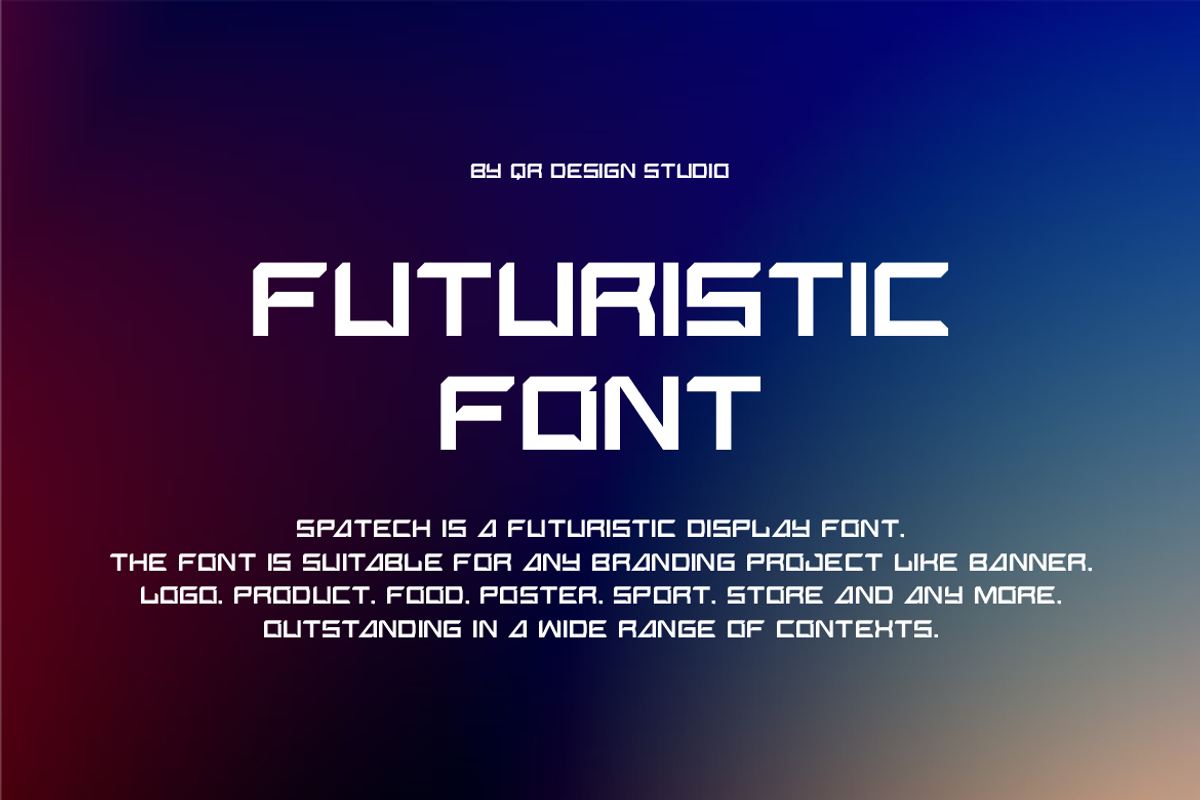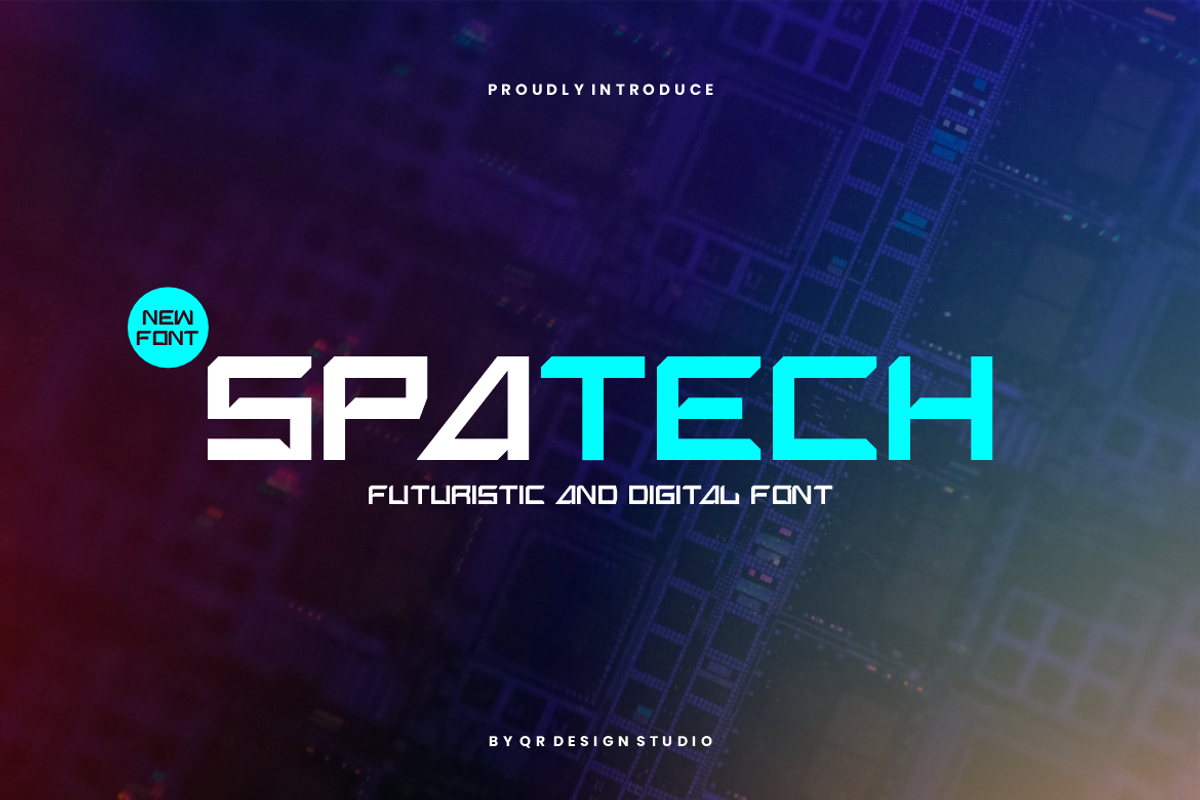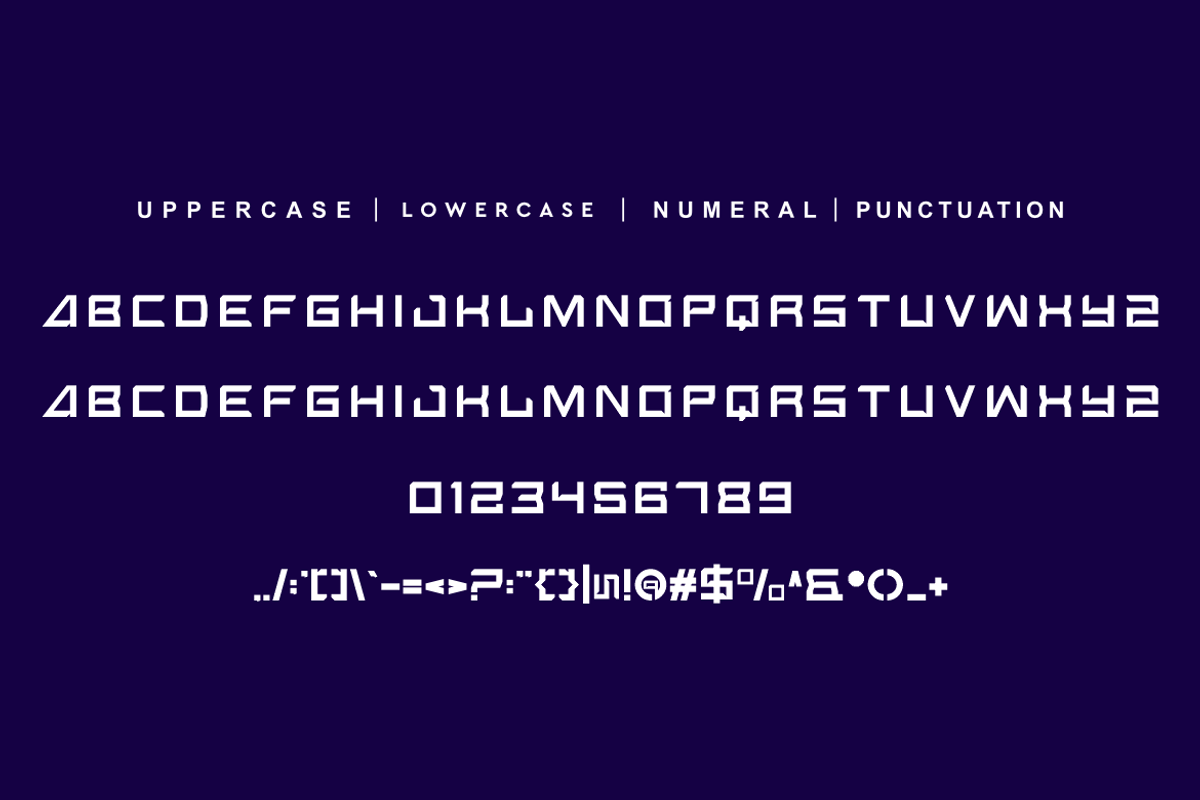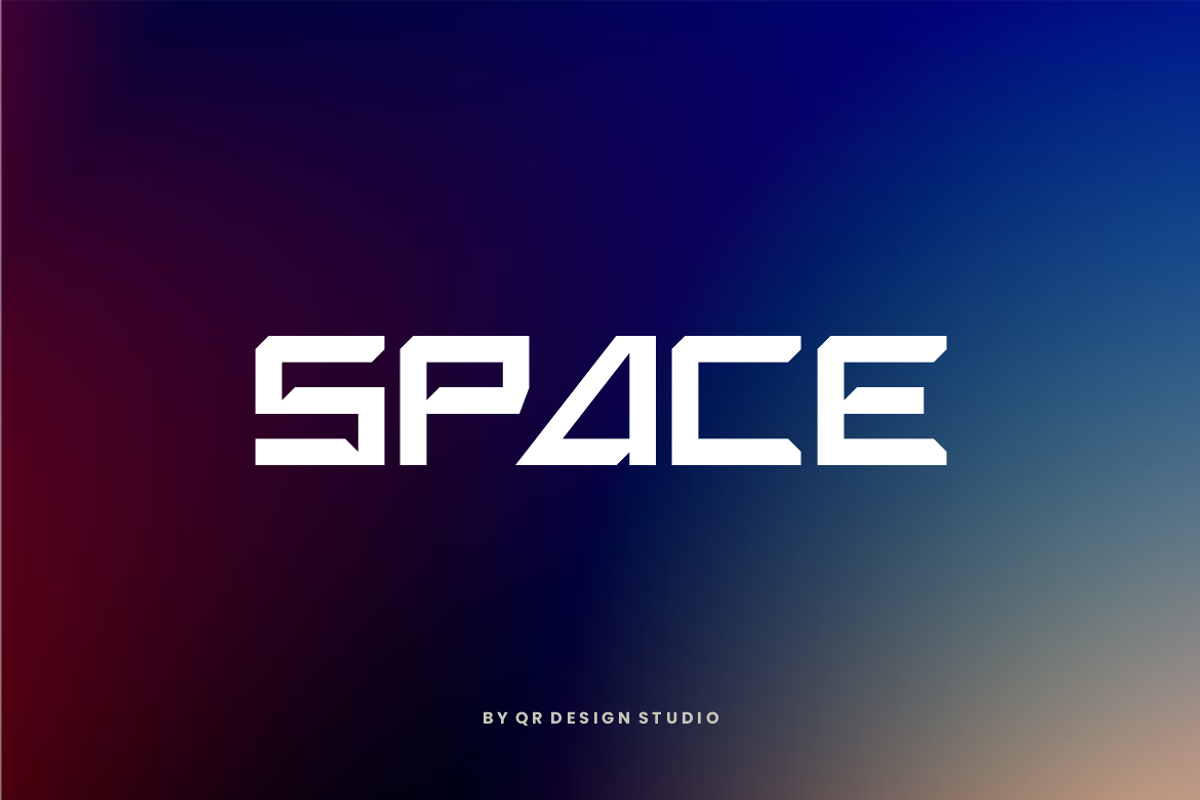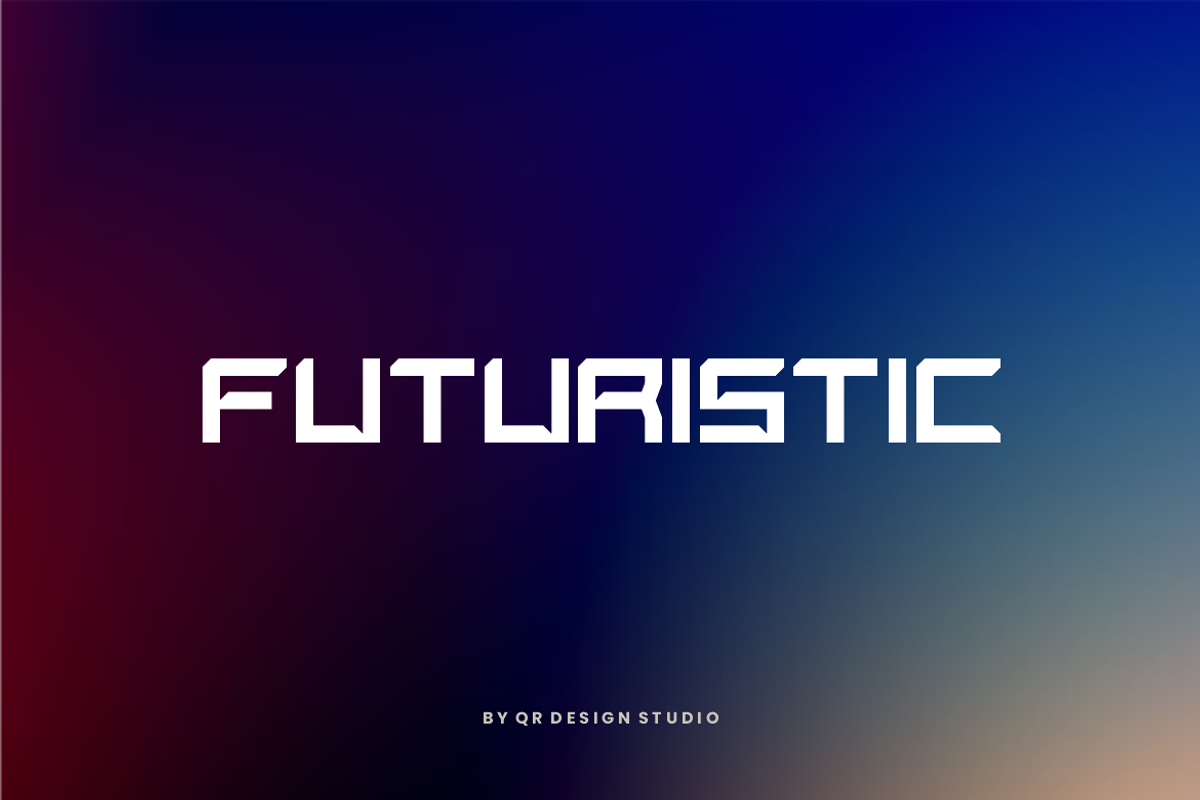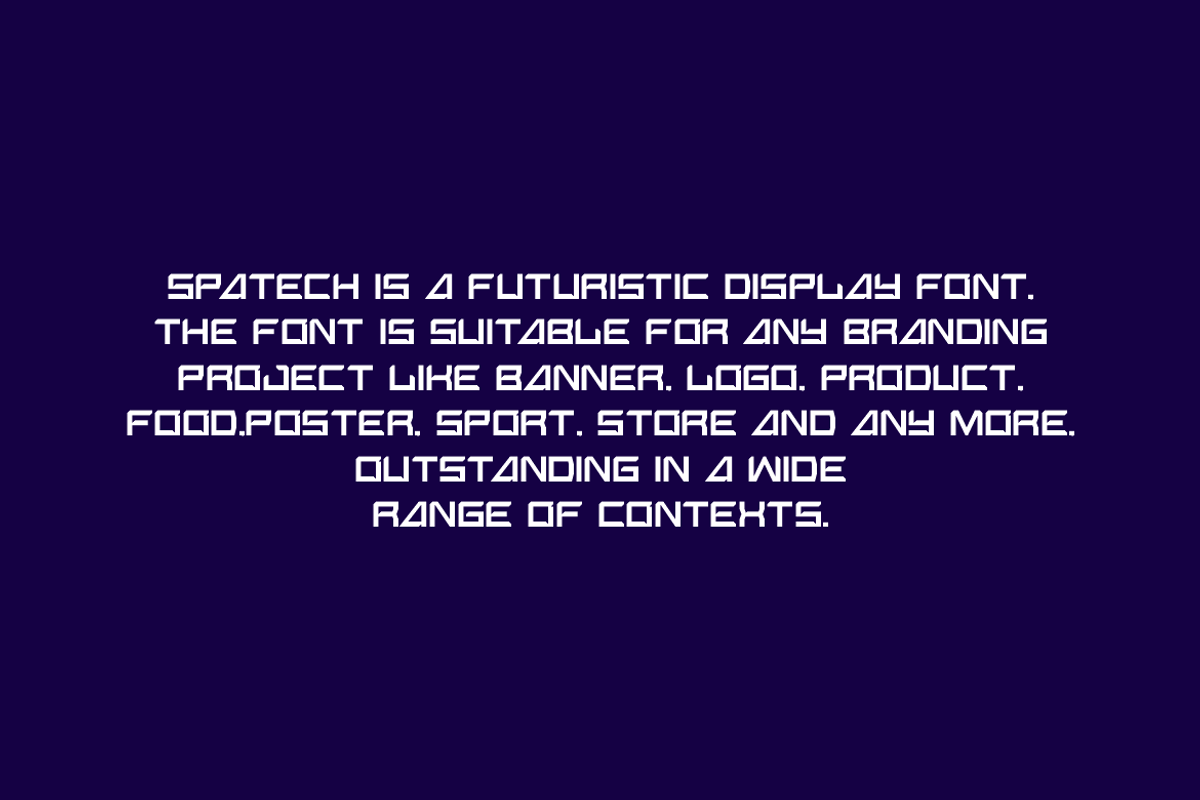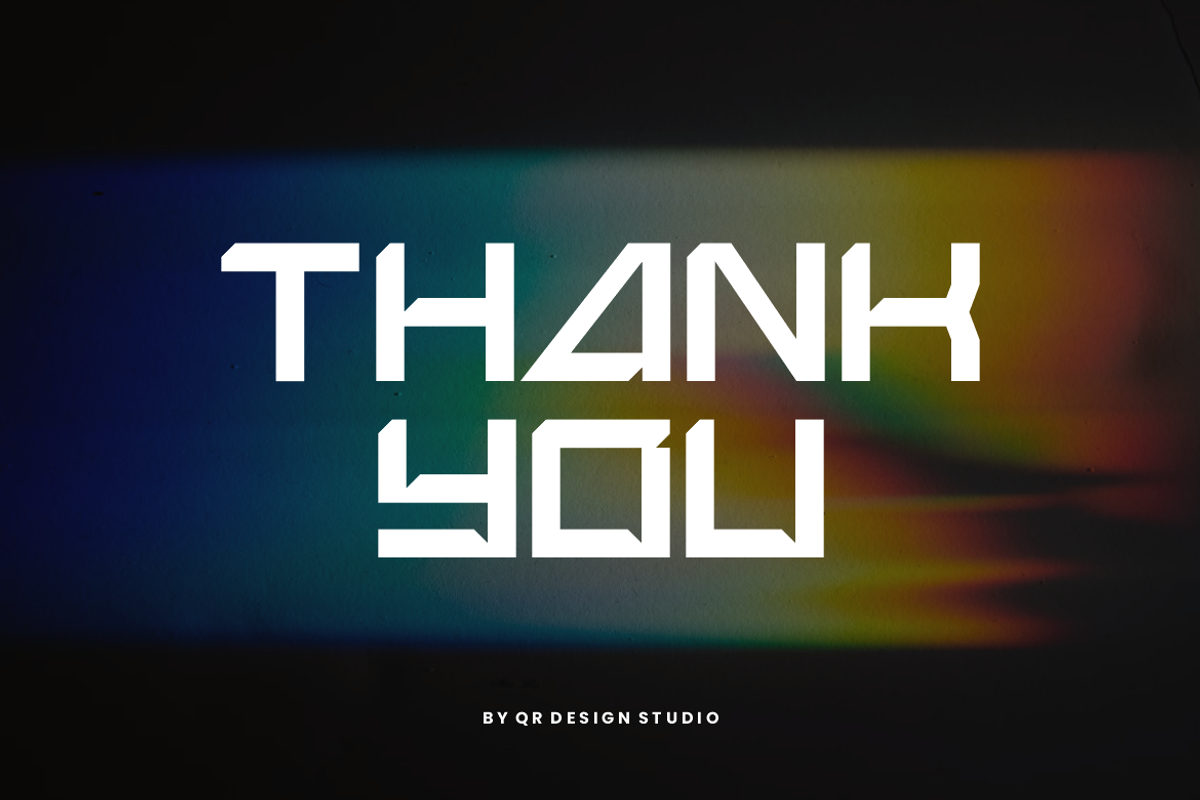
Spatech - Futuristic & Digital Font
Spatech Font is a bold and authentic display font. The font is suitable for any branding project like poster, logo, sport, and many more. Outstanding in a wide range of contexts.